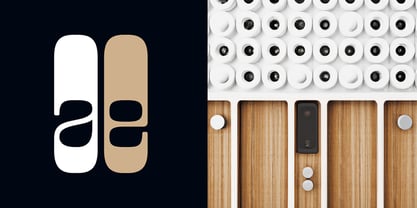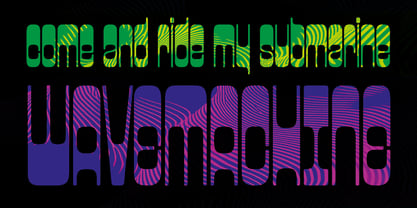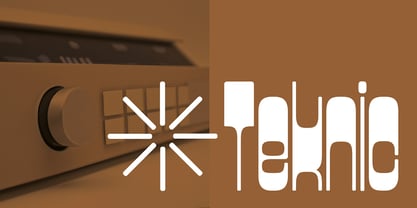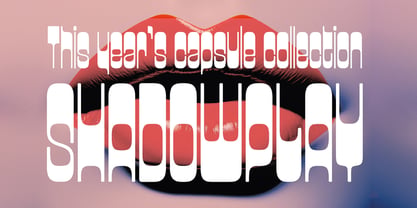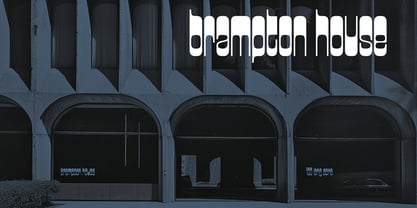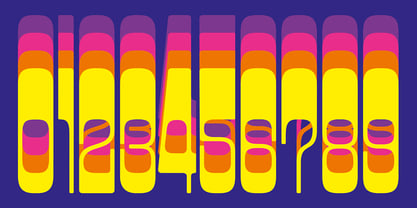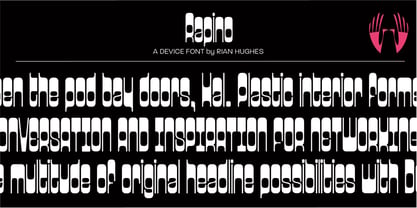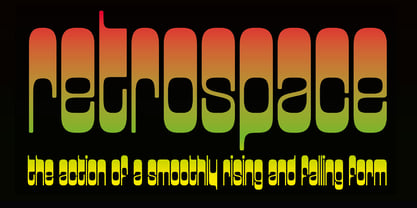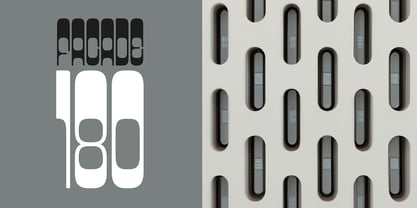
Rapino
La familia tipográfica Rapino fue diseñada por Rian Hughes y publicada por Device. Rapino contiene 1 estilos. Más información sobre esta familia
Sleek, stylish and futuristic, Rapino is seen to best effect in short words and headlines.
Based on a TV-shaped rounded rectangle with a strong horizontal stress, Rapino inverts the usual thick/thin weight distribution. Reverse-weight typefaces date back to Victorian hot-metal foundries, in whose catalogues all kinds of eccentric and experimental designs proliferated. They are difficult to execute consistently as certain letters, for example the K or x, are open at the top and bottom and do not lend themselves to this treatment very easily. It is possible to redesign them – Laydeez Nite, for example, shows how this might be achieved – but the results are sometimes hard to parse. Hence Rapino has a certain degree of bounce, especially in the upper case.